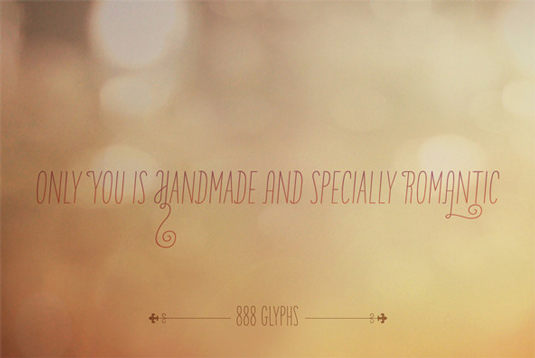
Font of the day: Only You
Every day we showcase the best fonts on the web. Today it's Only You by Gabriel de Souza.
Only You by Gabriel de Souza
Only You was designed by Gabriel de Souza earlier this year. Handmade and specially romantic, it includes 888 glyphs, including a full set of upper and lowercase letters and numbers.
De Souza comments on her design on Behance: "Only You is handmade and specially romantic. It was made to brighten your projects, turning everything more beautiful."